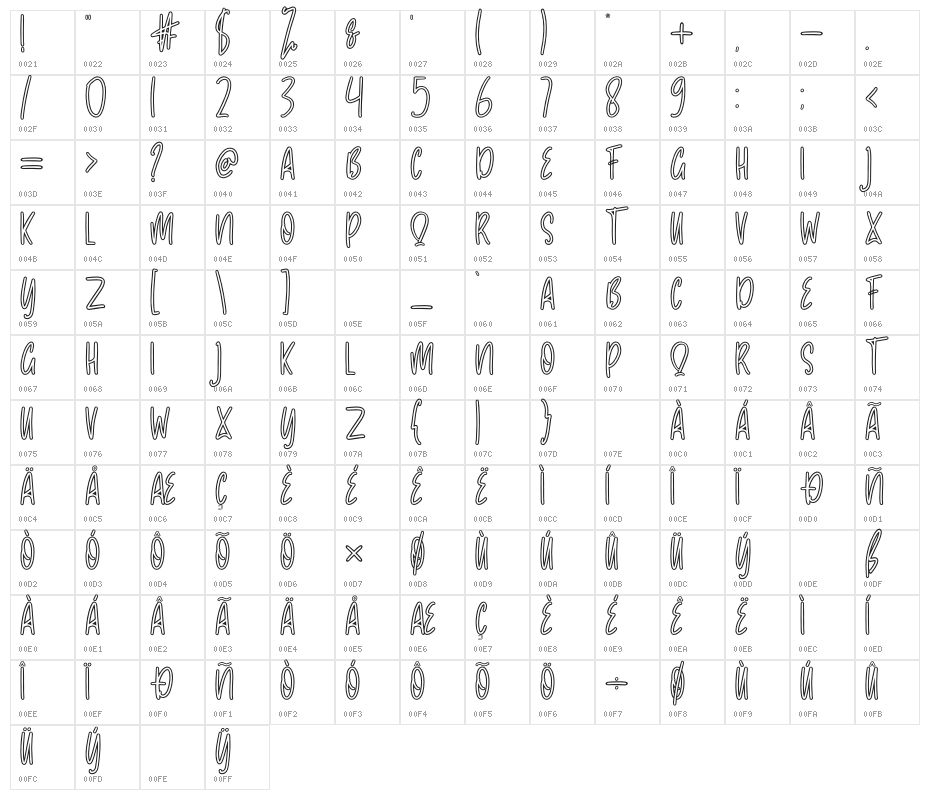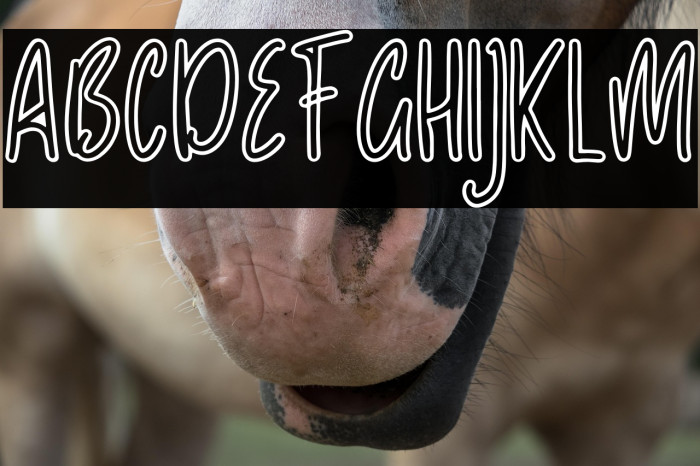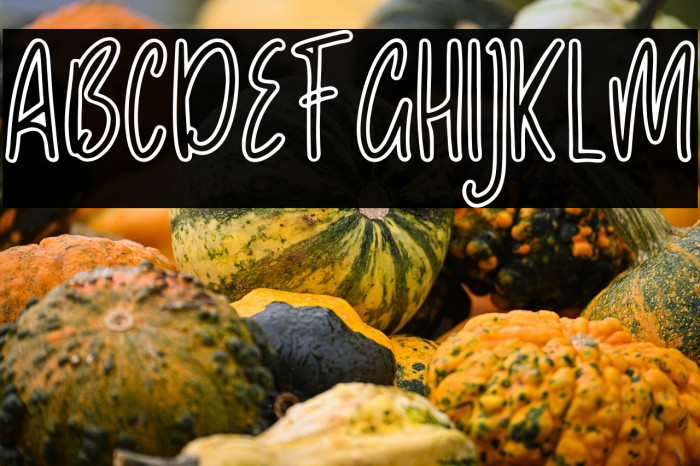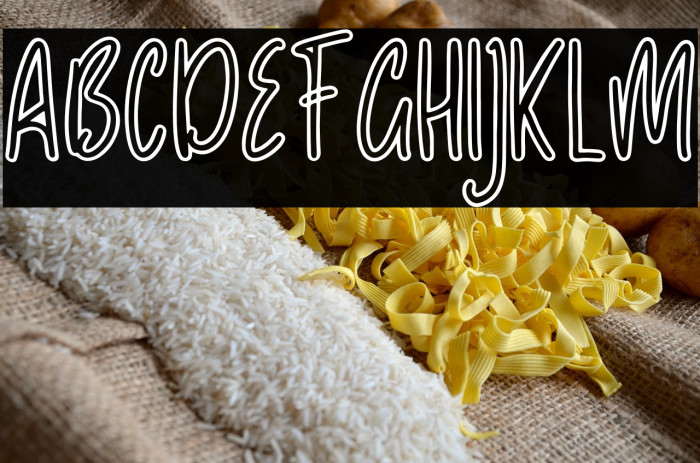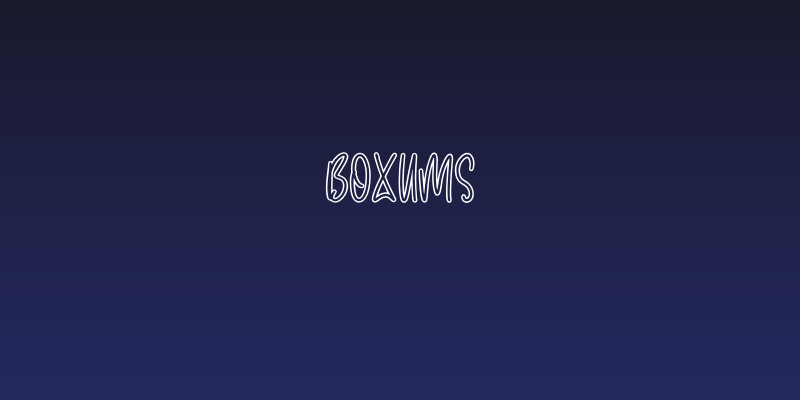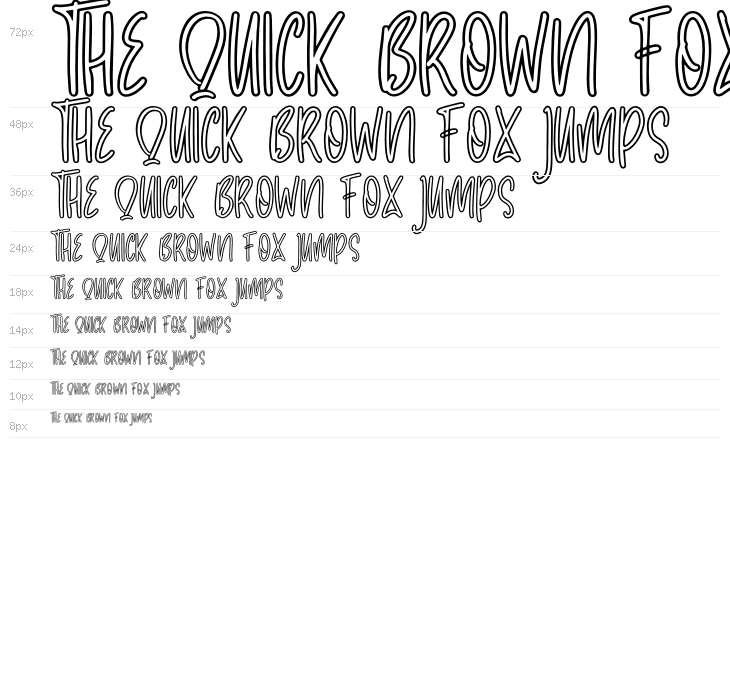
Boxums Font
Boxums Description
This font features a playful and dynamic handwritten style with a bold, outlined appearance. Each character is crafted with a consistent stroke width, giving it a cohesive look. The letters are slightly elongated, adding a sense of height and elegance. The uppercase and lowercase letters maintain a uniform style, while the numbers and special characters complement the overall design. This font's unique personality makes it stand out, offering a modern twist on traditional handwritten fonts. Its clear legibility and distinctive style make it suitable for various creative applications.